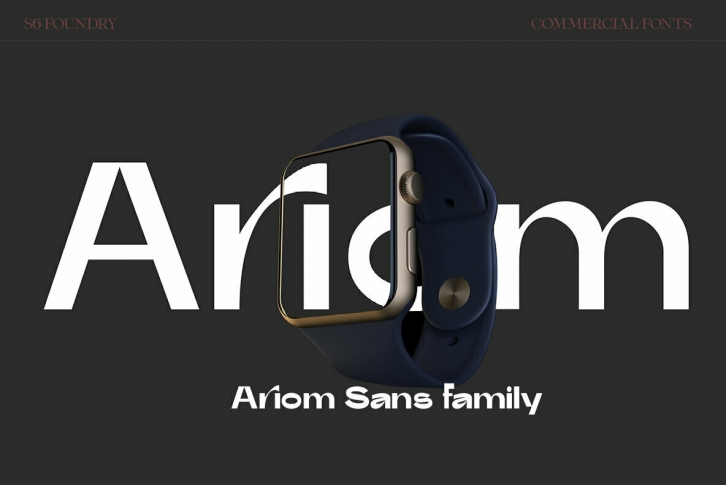
Ariom is a fresh, geometric, sans-serif font family inspired by iconic typefaces. Ariom has a big x-height value, ​geometrical letterforms, sharp edges, and strong stroke contrast as the neo-grotesque fonts from the 20th Century. The typeface is versatile and can be successfully used in magazines, posters, branding, websites, headlines, large-format prints, brand identities, social media, advertising, editorial design, posters.
The family contains over 40 alternative glyphs and over 50 ligatures in each style and comes in 3 weights with their corespondent italics.